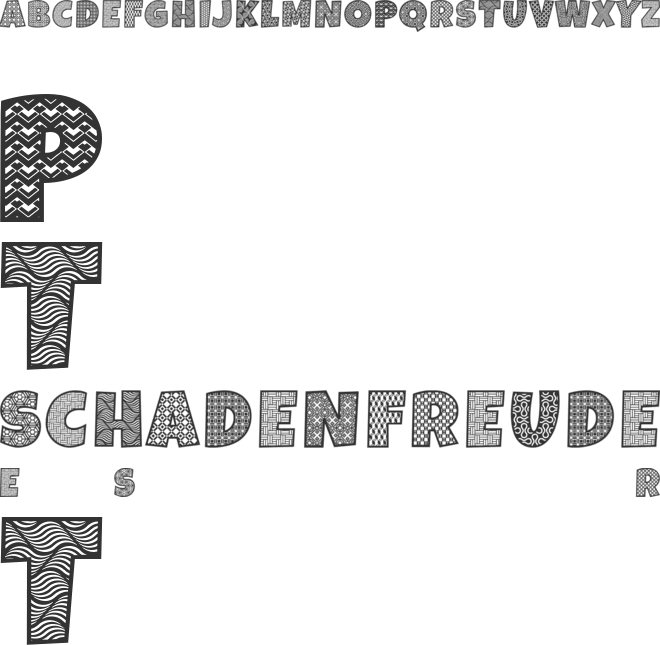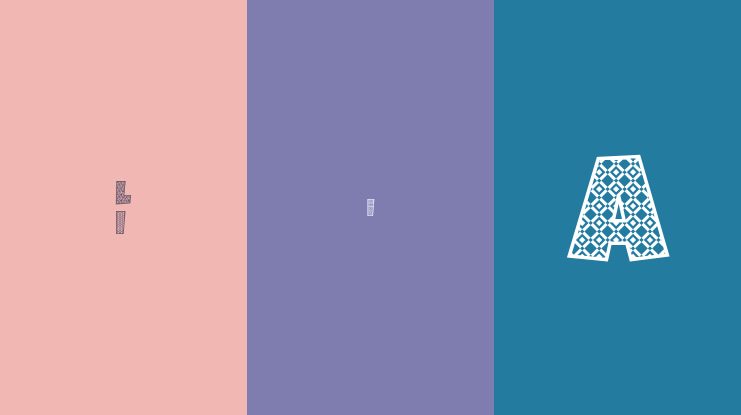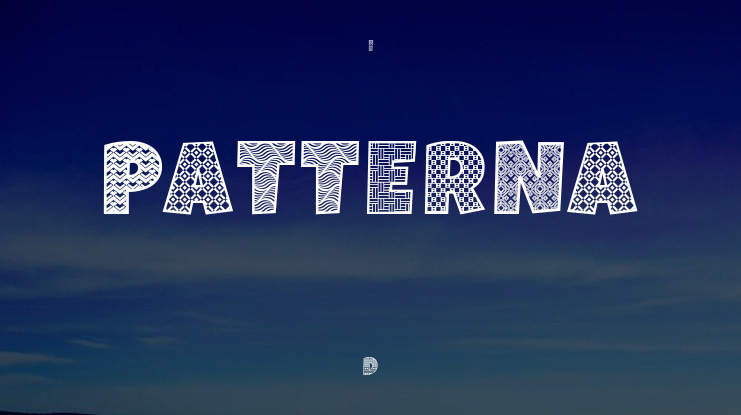
PATTERNA Font
Patterna is a bold decorative font filled with handcrafted patterns and multilingual support—perfect for artistic headlines, packaging, and playful branding.